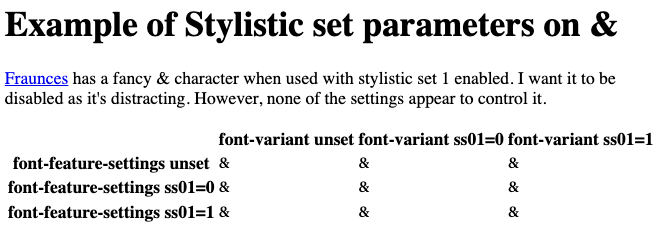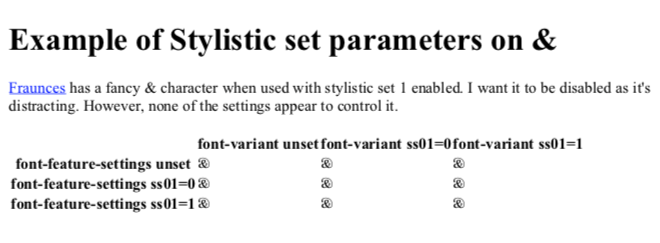
I'm trying to create a document using the Fraunces font from Google. This font has a stylistic set feature which makes some letters more fancy. The letters look fine but the & does not - it is overly fancy - and I want to turn that off. The way to do that, according to the page (https://fonts.google.com/specimen/Fraunces#type-tester), is to disable the stylistic set 1, which should be the default.
In Prince, I always get the fancy &. In Firefox and Chrome, I always get the non-fancy &.
So something must be wrong, but I thought I'd followed the guidance in the Prince documentation for how to configure this.
* The HTML content that shows the different ways of controlling the ss01 setting - specifically the use of the font-variant with prince-opentype(ss01(n)) and the font-feature-settings.
* PNGs taken from the output, so that you can see what I see.
I think this is a bug because I've followed the advice given - the fact that it doesn't work in the browser suggests that it might be something I'm doing wrong here, but I don't know why and one of those settings should have made it work, I'm sure.
Can you suggest what I need to do to disable the stylistic set and get back to the plain & ?